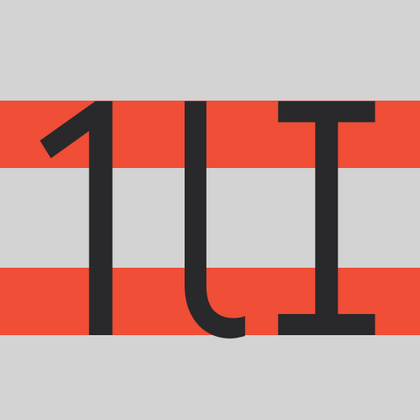
Legible Fonts
TypeType’s legible fonts are specifically engineered for comfortable text perception. Each letter features a carefully crafted form, optimal proportions, and crisp outlines, ensuring easy readability even at small sizes across all media—from smartphone screens to printed materials.
Our collection includes fonts thoroughly tested for legibility under various conditions, making them perfect for interfaces, books, instruction manuals, and any project where text clarity is paramount.
TT Odellia is an old-style serif with a modern design, inspired by Venetian typefaces and classical music.
TT Nooks Serif is a display modern serif with a slight touch of egocentricity. It has a sharp and firm, yet elegant and stately character.
TT Bells combines the elegant softness of Antiqua with a complex and daring temper reflected in straight stroke terminals and arrowheaded serifs. The typeface is based on the broad nib, which creates these hallmark terminals and serifs.
TT Severs is a geometric sans serif with emphasized elements of internal brackets. The main visual feature of TT Severs is the unusual form of internal ovals.
TT Jenevers is a modern serif with a Dutch flavor. The font family features the characteristic details peculiar to Dutch serifs—these are the asymmetrical shape of serifs and an irregular slant of ovals.
TT Regins is a Scottish modern serif. Striking contrast and sharp triangular serifs give this font a stern and commanding character, while refined forms, enlarged lowercase letters, and slightly condensed, static proportions add grace to its design.
TT Quaris is an exquisite, modern high-contrast sans whose design balances between soft and sharp. The glyph shapes in the font are fluid and tend towards roundness, yet there are also sharp elements.
TT Bakers is a fluid serif with a gentle and lively character. This font is like freshly baked goods: it`s warm and soft, especially in its bolder weights.
TT Firs Neue is a contemporary reincarnation of the good old TT Firs sans serif.
TT Fellows is a humanist sans serif with a mechanical touch.